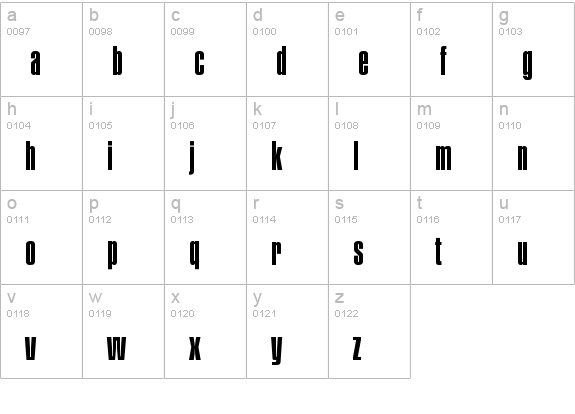
Plakette-DemiBold is a sub-bold, structured variant in the Plakette typeface family \xE2\x80\x94 well suited to sub-headlines and emphasised passages.
Plakette-DemiBold is a modern and stylish font that exudes confidence and sophistication. With its bold and striking letterforms, this font is perfect for headlines, titles, and any design project that requires a strong and impactful visual presence. The Plakette-DemiBold font features clean lines and well-defined curves, providing a sense of stability and readability. Its carefully crafted design ensures legibility even at smaller sizes, making it versatile for both print and digital applications. One of the most appealing aspects of Plakette-DemiBold is that it is freely available to download at FontsMarket.com. This means that designers, creatives, and typographers can easily access and use this font without any restrictions. Whether you're working on a personal project or a commercial venture, Plakette-DemiBold gives you the freedom to elevate your designs with its bold and distinctive aesthetic. Plakette-DemiBold is a font that commands attention and makes a lasting impression. Its timeless appeal and versatility make it a valuable addition to any designer's toolkit. So, why wait? Head over to FontsMarket.com and download Plakette-DemiBold today, and let your creativity soar with this exceptional font.